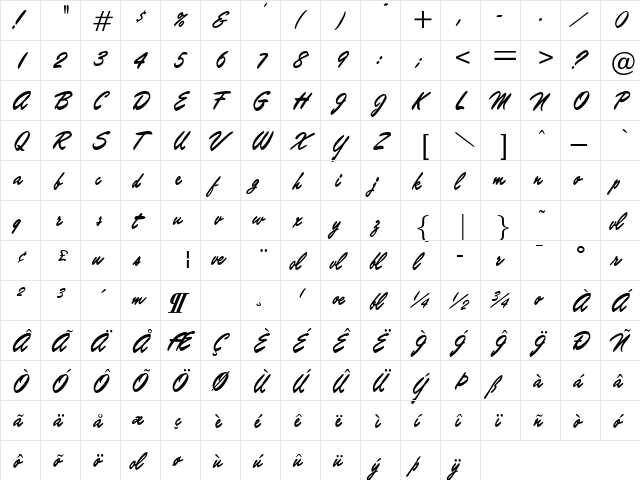
Kingmaker Regular
Design Context for Kingmaker Typeface
Kingmaker is a composed and adaptable typeface that performs quietly and consistently across a wide range of design contexts.
Pro Tip: Use Kingmaker in both headline and body roles to test its range before committing to a single application.